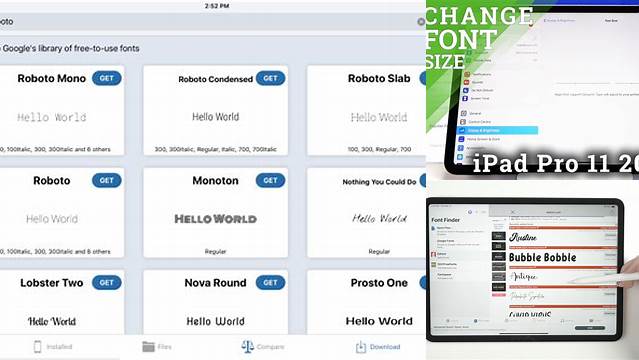
Change Fonts On IPad Pro: A Simple Guide
Changing fonts on your iPad Pro can drastically improve your reading experience and allow for greater personalization. Whether you're looking to enhance readability, match your brand aesthetic, or simply express your unique style, the iPad Pro offers several ways to customize your fonts. In this comprehensive guide, we'll explore various methods to change fonts on your iPad Pro, ensuring you can tailor your device to your exact preferences. From system-wide changes to app-specific adjustments, we'll cover everything you need to know to master font customization on your iPad Pro. So, guys, let's dive in and make your iPad Pro truly yours!
Why Change Fonts on Your iPad Pro?
Before we get into the how-to, let's talk about why you might want to change fonts on your iPad Pro in the first place. Customizing your fonts isn't just about aesthetics; it's also about functionality and personal comfort. Here are some compelling reasons to consider font customization:
- Enhanced Readability: Certain fonts are inherently easier to read than others. If you find the default font straining your eyes, switching to a more readable font can make a world of difference. For example, sans-serif fonts like Open Sans or Roboto are often recommended for digital reading due to their clean and simple designs. By optimizing the font for your reading habits, you can reduce eye strain and improve focus, making those long reading sessions much more comfortable and productive.
- Personalization: Your iPad Pro is a reflection of your personal style, and customizing the fonts is a fantastic way to add a personal touch. Just like choosing a unique wallpaper or arranging your apps in a specific way, selecting your preferred fonts allows you to create a device that truly feels like yours. Experiment with different font styles to find the ones that resonate with your personality and make your device stand out. Whether you prefer a classic serif font or a modern sans-serif, the options are endless.
- Branding and Consistency: If you use your iPad Pro for professional purposes, such as creating documents or presentations, using consistent fonts that align with your brand can reinforce your brand identity. Consistent use of brand-specific fonts across all your digital platforms creates a cohesive and professional image. This attention to detail can make a significant impact on how your work is perceived, ensuring your documents and presentations reflect the quality and consistency of your brand.
- Accessibility: Some users may require specific fonts or font sizes due to visual impairments or reading disabilities. The iPad Pro's accessibility features allow for easy font customization, ensuring everyone can use the device comfortably. Adjusting font sizes and choosing fonts that are easier to read can significantly improve the user experience for individuals with visual impairments. These customization options make the iPad Pro a versatile and inclusive device for all users.
- Improved User Experience: A simple font change can sometimes drastically improve the overall user experience. If you're not happy with the default font, experimenting with different options can make your iPad Pro feel fresh and new. A subtle change in font can rejuvenate your device and make it feel more aligned with your personal preferences. This small adjustment can have a significant impact on your daily interaction with your iPad Pro, making it a more enjoyable and personalized experience.
By understanding these benefits, you can appreciate the importance of changing fonts on your iPad Pro and how it can positively impact your overall user experience.
Methods to Change Fonts on iPad Pro
Now that we've established why font customization is beneficial, let's explore the various methods you can use to change fonts on your iPad Pro. There are several ways to achieve this, each with its own set of advantages and limitations. We'll cover system-wide changes, app-specific adjustments, and the use of third-party apps to give you a comprehensive understanding of your options.
1. Using the Accessibility Settings for System-Wide Font Changes
The easiest way to make system-wide font changes on your iPad Pro is through the Accessibility settings. This method allows you to adjust the text size and enable bold text, which can significantly impact readability across the entire device. While it doesn't allow you to change the font style itself, it's a great starting point for improving text visibility.
Here's how to do it:
- Open the Settings app: Locate the Settings app on your iPad Pro's home screen and tap to open it. The Settings app is your central hub for customizing various aspects of your device, including accessibility features.
- Go to Accessibility: Scroll down in the Settings menu and tap on “Accessibility.” This section houses a range of settings designed to make your device more user-friendly, especially for individuals with specific needs.
- Select Display & Text Size: Within the Accessibility menu, find and tap on “Display & Text Size.” This option leads you to a set of tools for adjusting how text and other visual elements appear on your screen.
Remember, the key to effective font customization is to find the balance between aesthetics and functionality. Choose fonts that not only look good but also enhance readability and overall user experience. With a little experimentation, you can transform your iPad Pro into a personalized device that meets your specific needs and preferences.